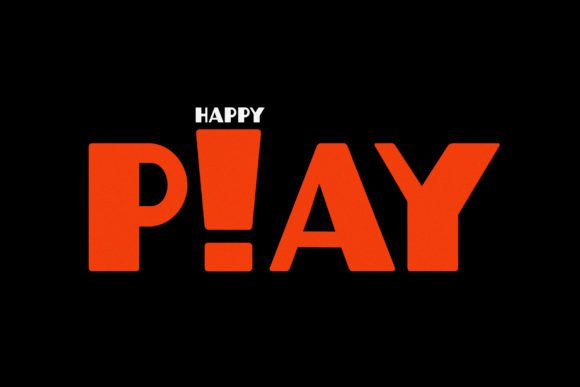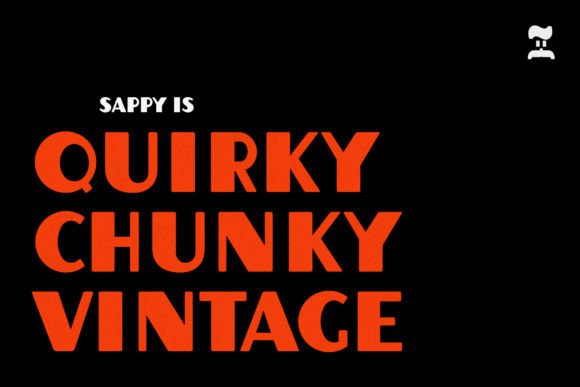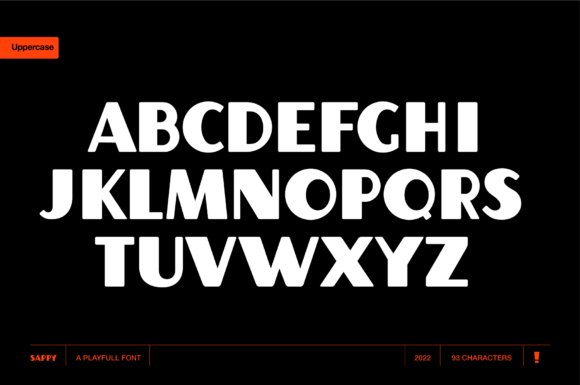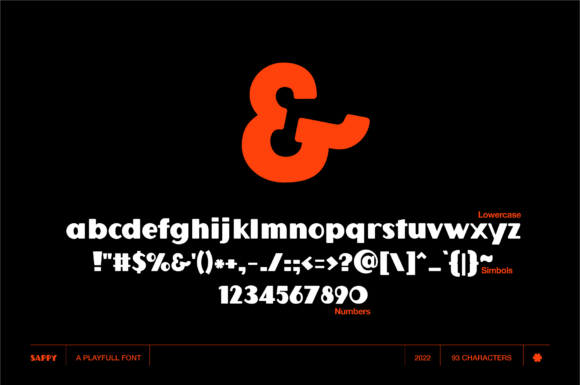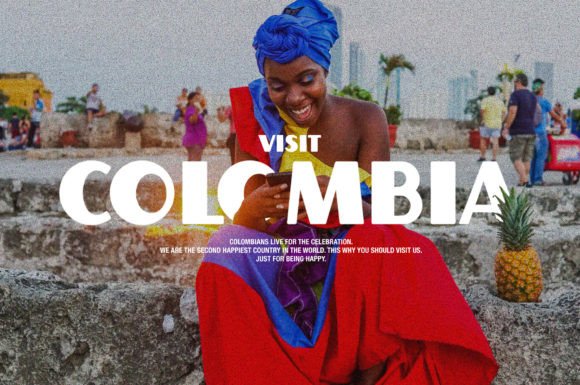
Introduction to Sappy Font
Sappy is a thick and juicy display typeface.
It has tons of character and charm This extended-width font will work wonders for all sorts of design projects like posters, headlines, magazines, stationary, apparel, branding, menus, and more.